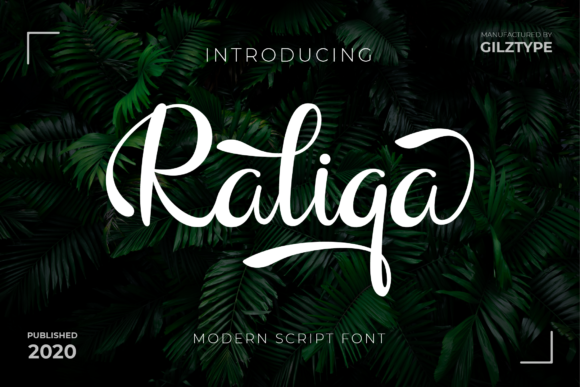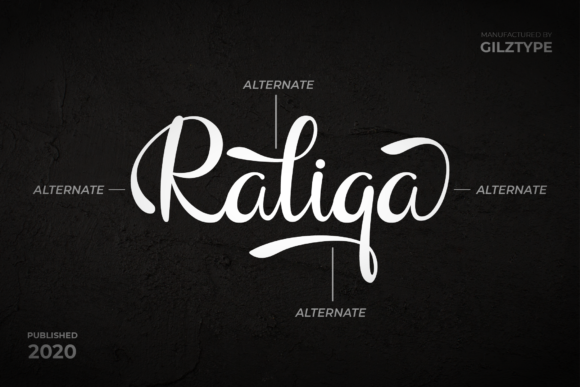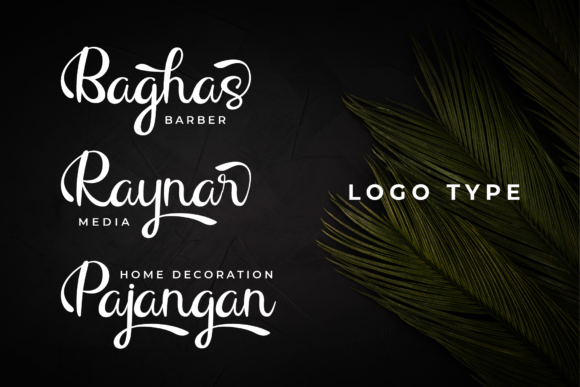
Raliqa Font
About Raliqa Font
Raliqa is a delicate, elegant and flowing handwritten font. It has beautiful and well balanced characters and as a result, it matches a wide pool of designs. Add it to your most creative ideas and notice how it makes them come alive!